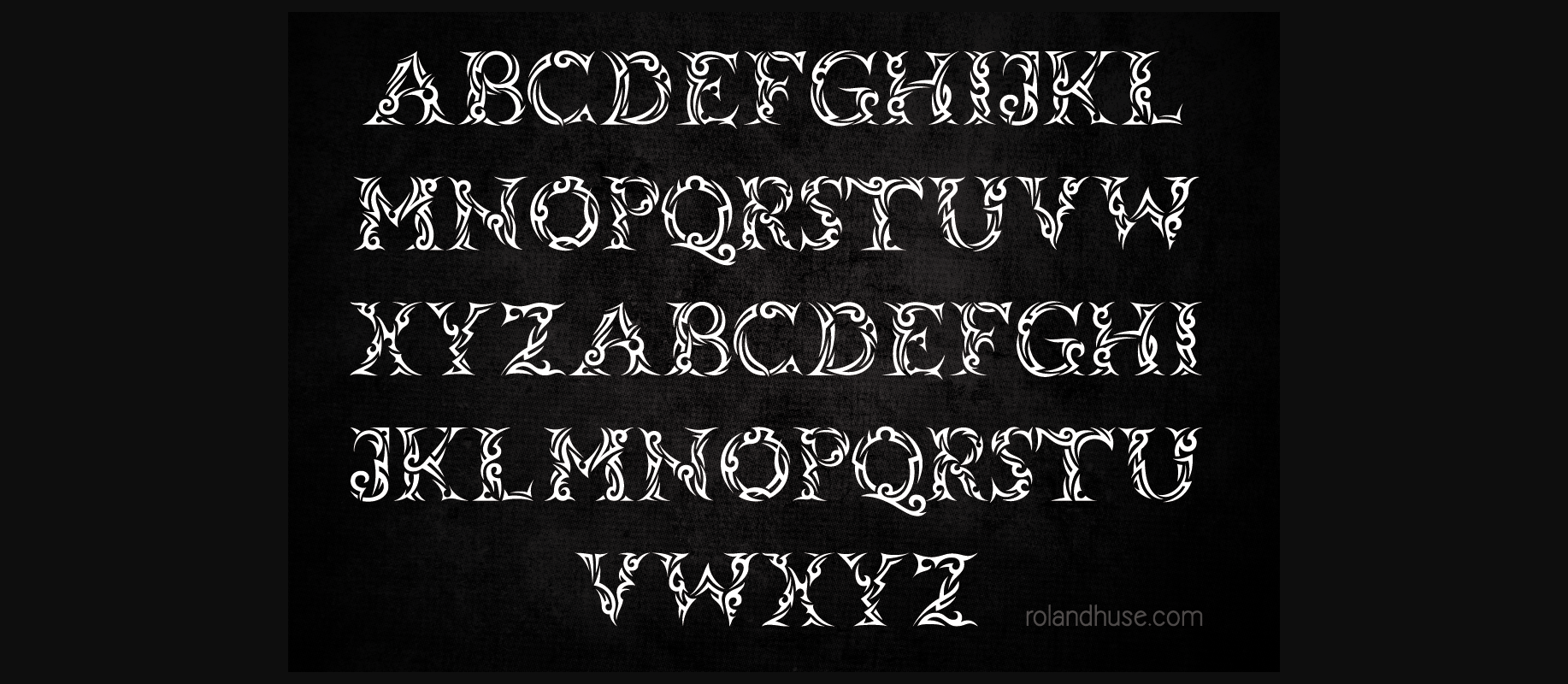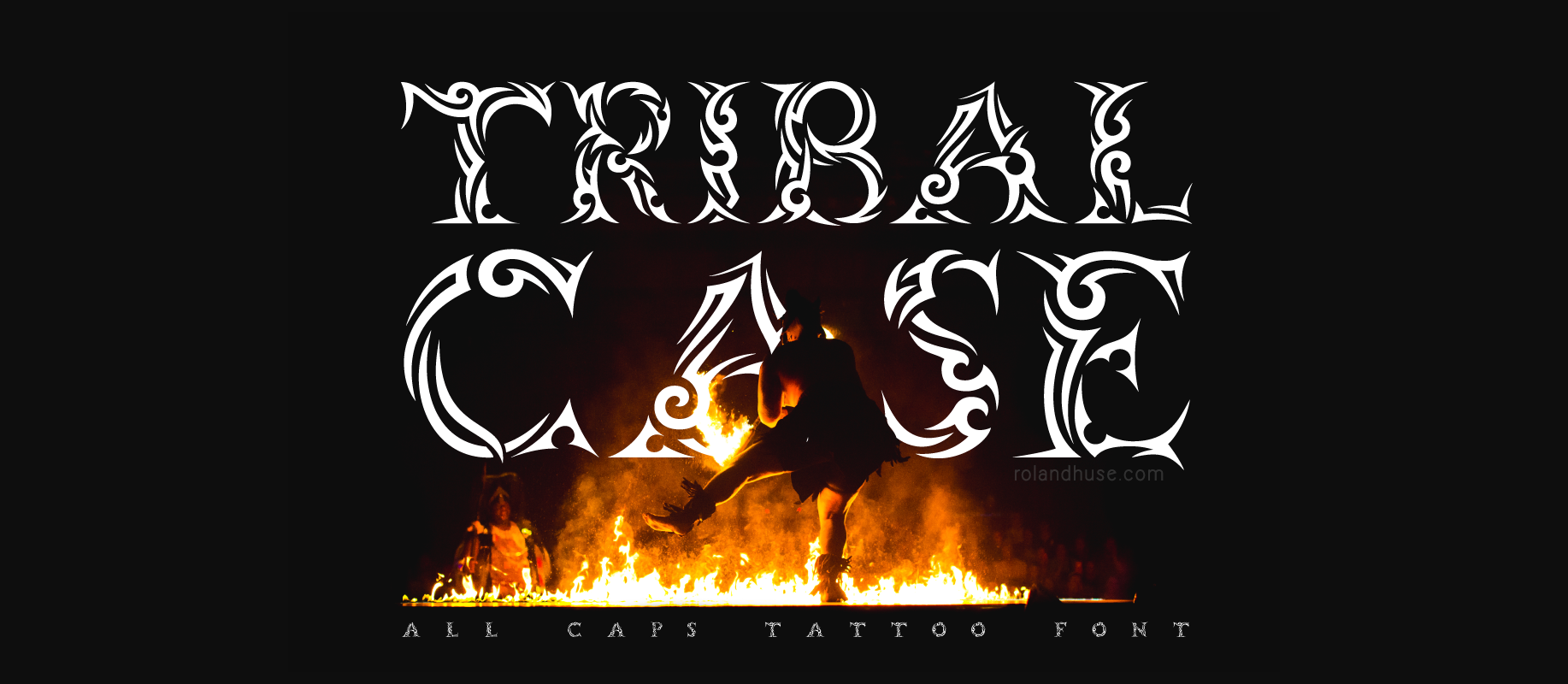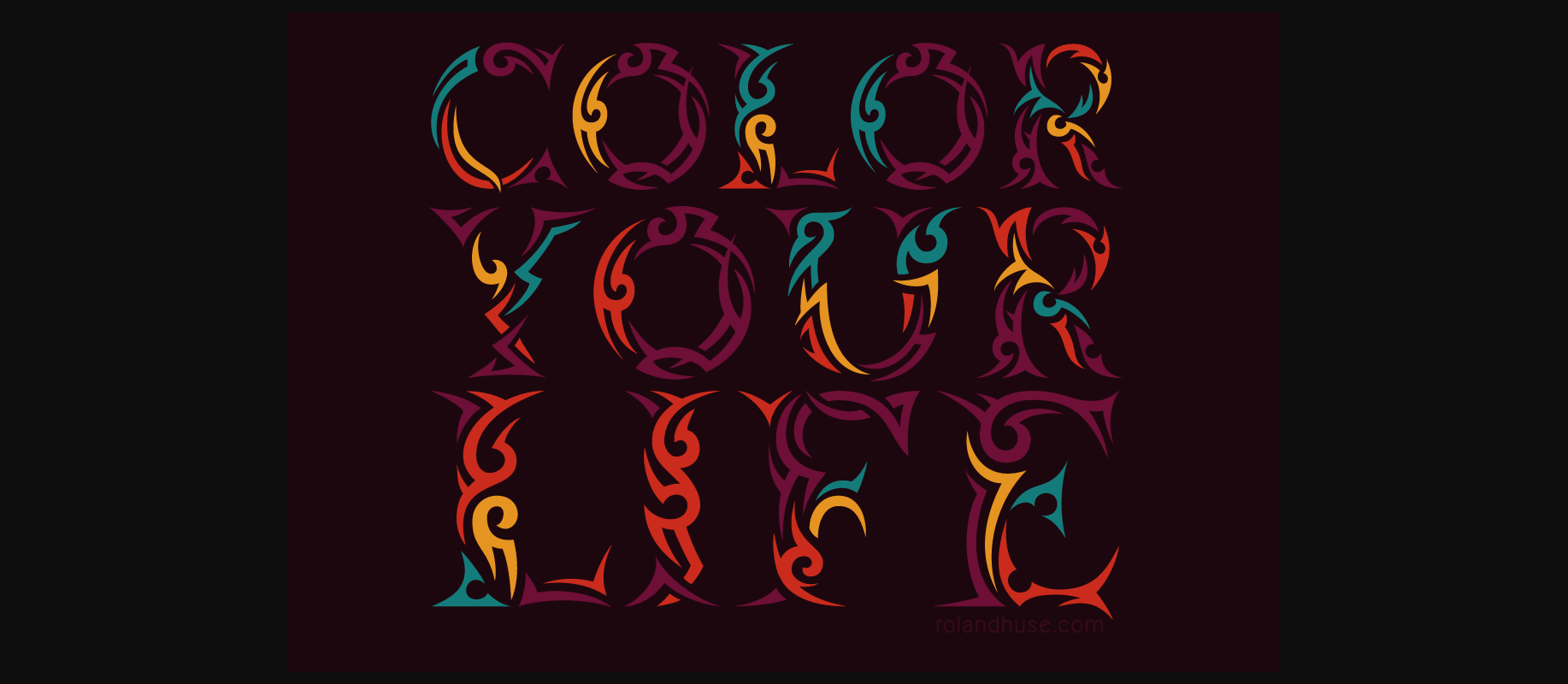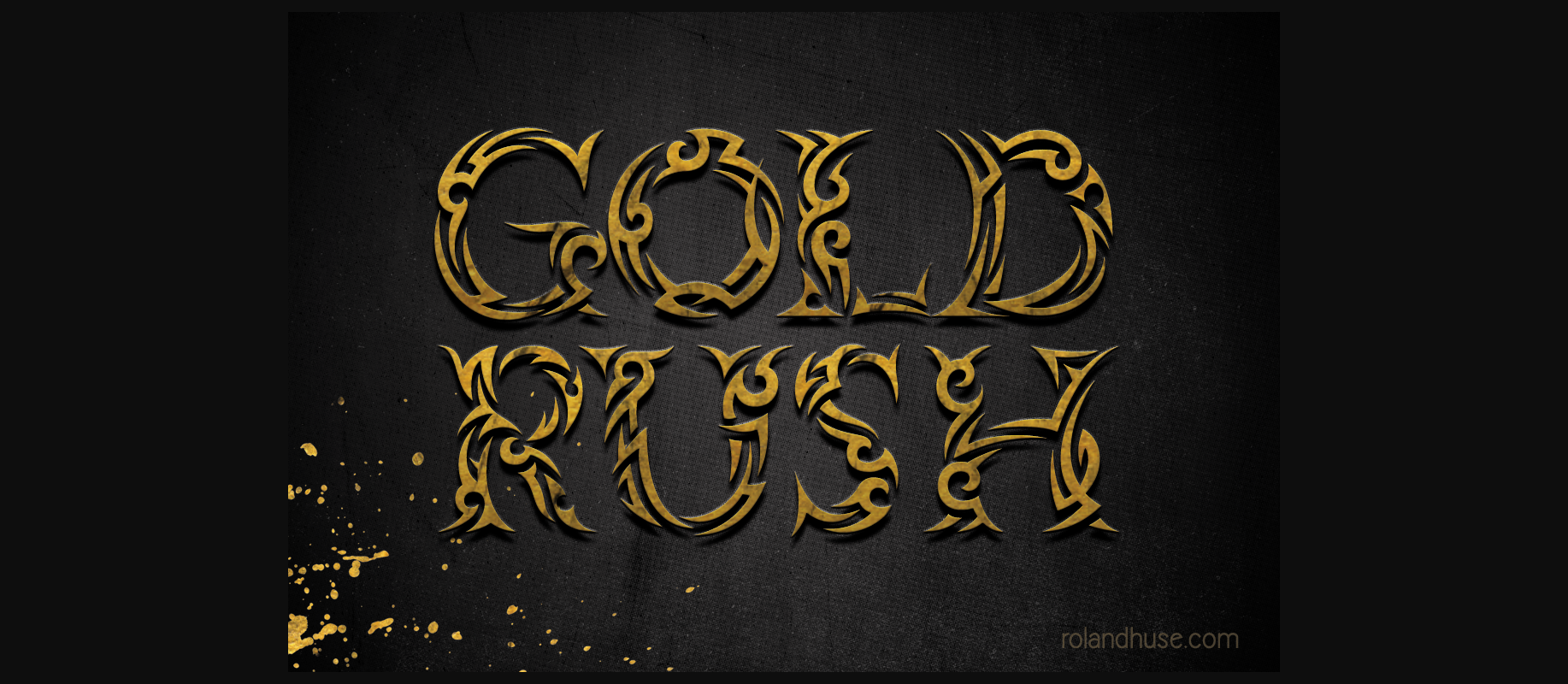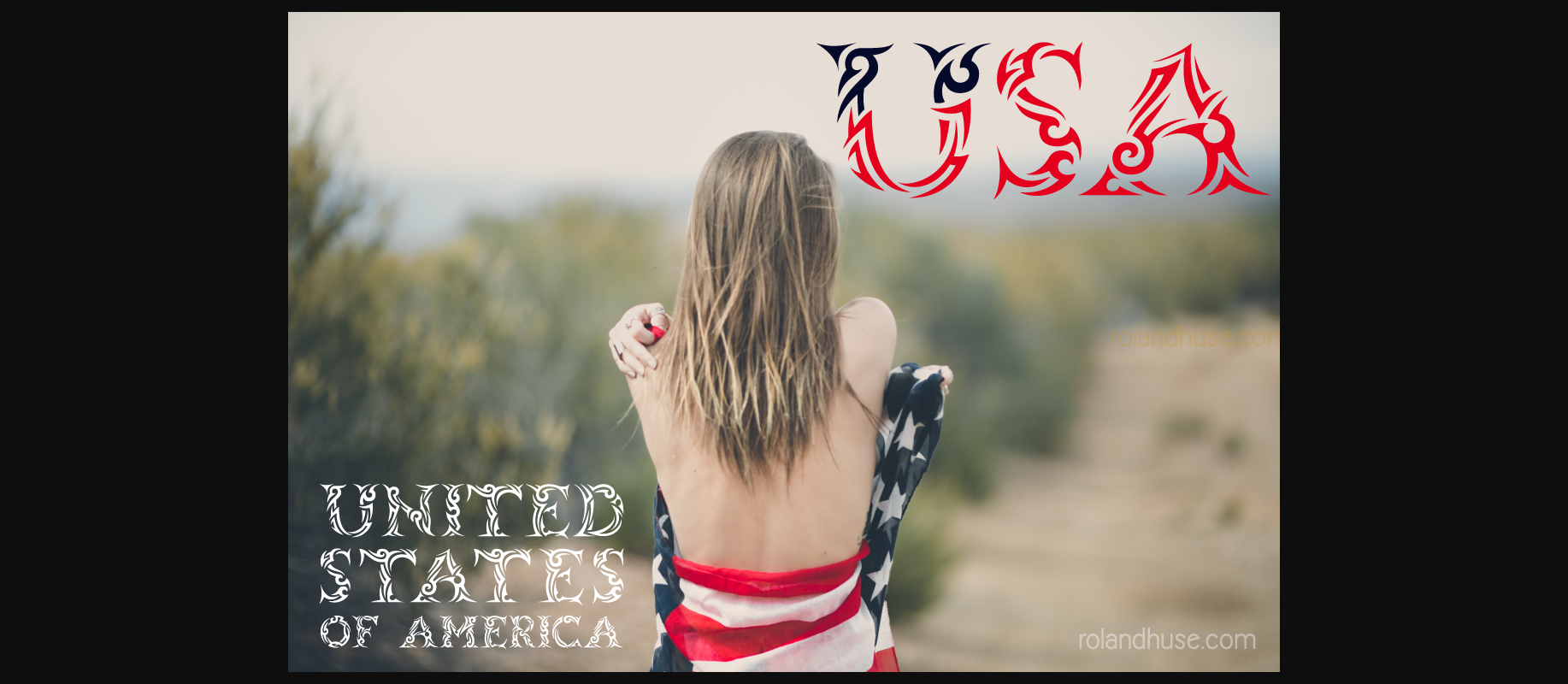
Tribal Case Font
About Tribal Case Font
Tribal Case is the perfect font when you need a tattoo-inspired, tribal appeal in your projects! This decorative font is a great way to anchor your designs in an alternative and hip look.